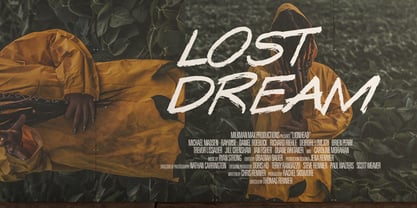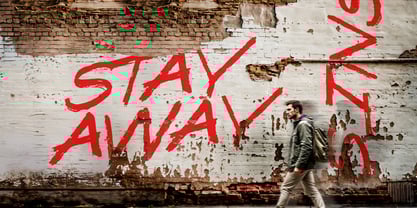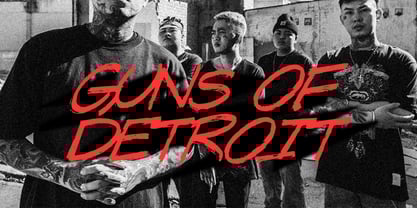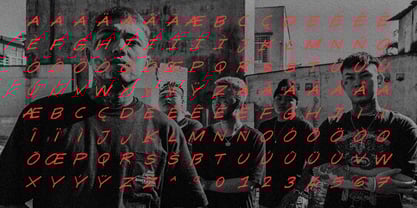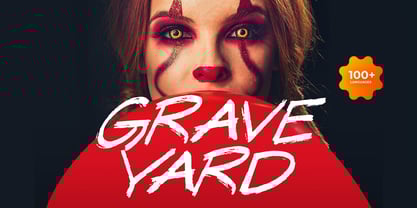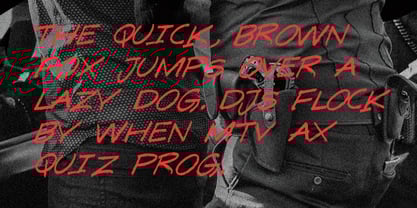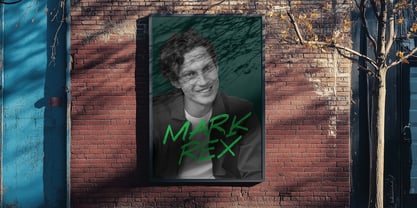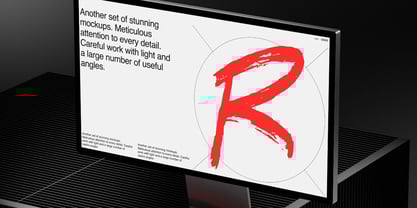
Graveyard Display
The Graveyard Display Font Family was designed by Alwin Johnson and published by Webhance. Graveyard Display contains 1 styles.
GRAVEYARD is a bold, wild, and untamed display font crafted for those who dare to stand out. Inspired by street art, horror culture, and dark aesthetics, every letter drips with attitude and energy.
Perfect for horror movie titles, band posters, Halloween designs, game graphics, branding, and social media content that needs an aggressive edge.